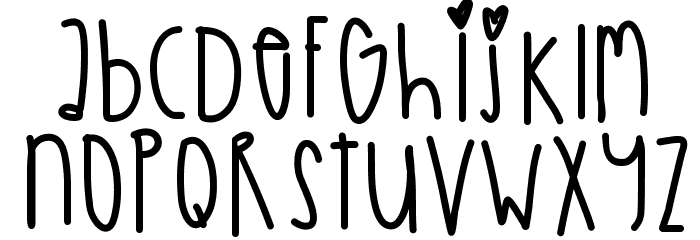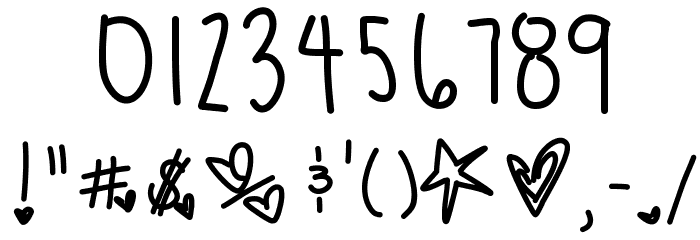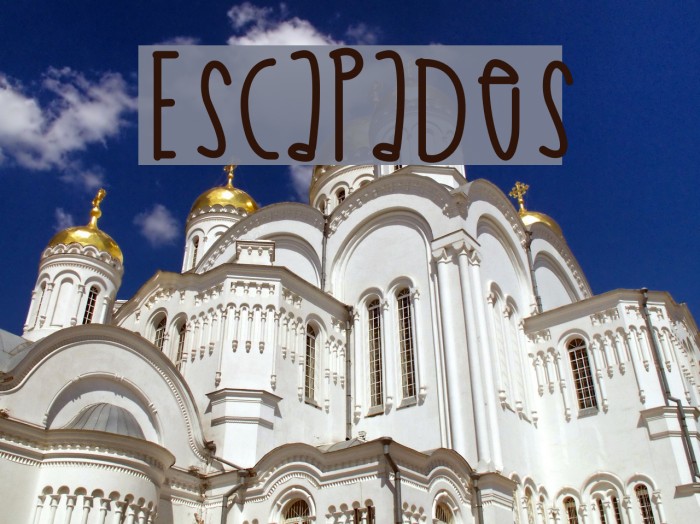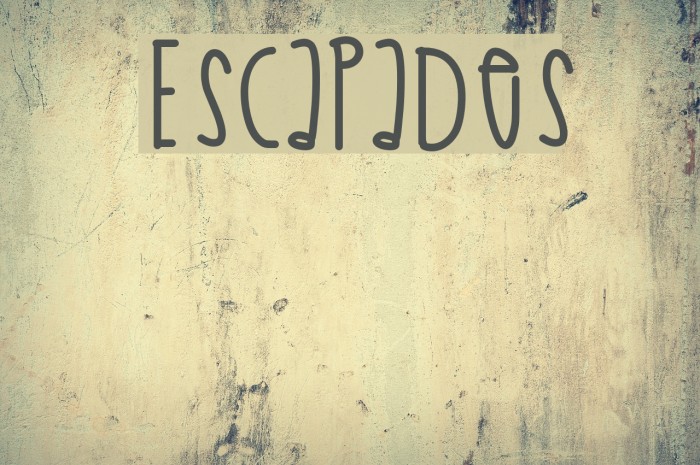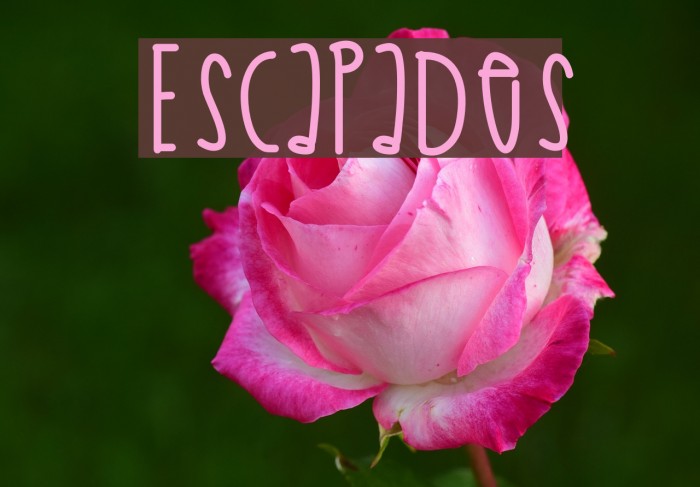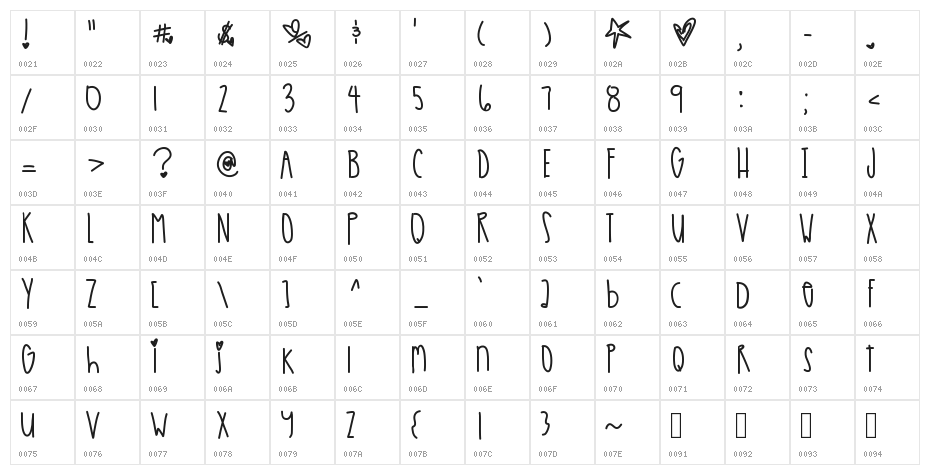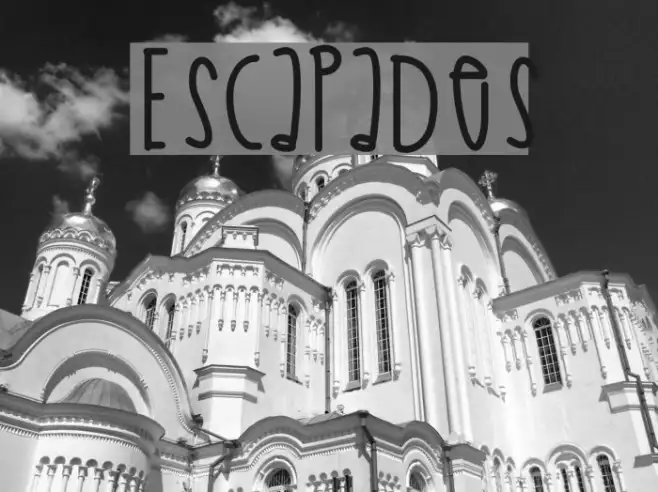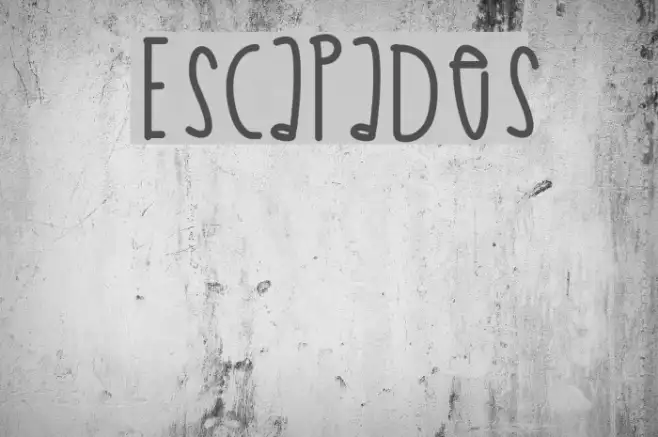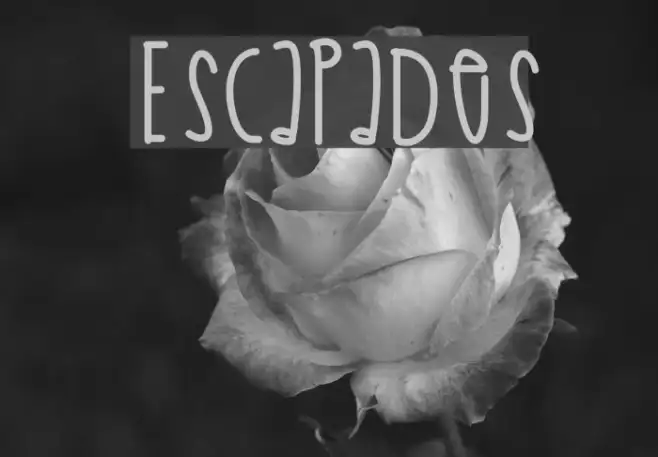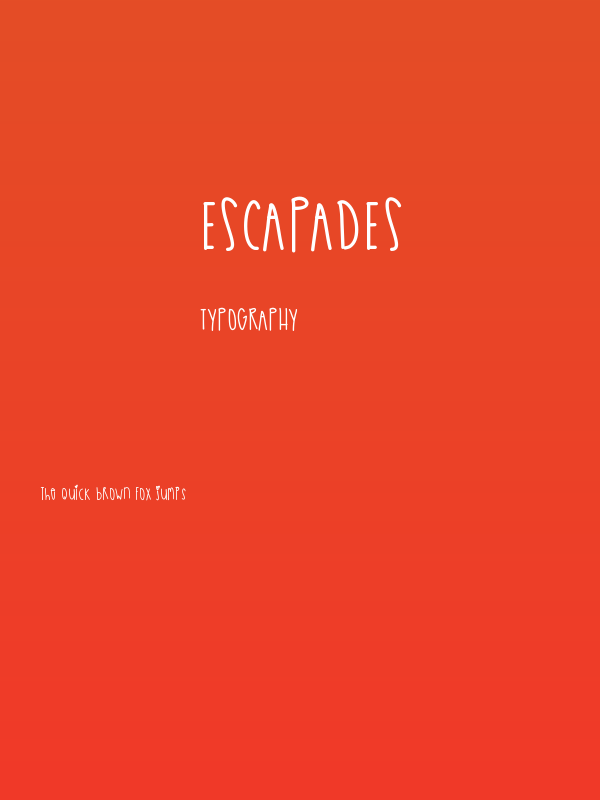
Escapades Font
This playful and whimsical font features tall, narrow letters with a hand-drawn aesthetic. The strokes are uneven, adding a casual and friendly feel. The uppercase and lowercase letters maintain a consistent style, with some characters like 'G' and 'Q' having unique, quirky elements. The numbers are similarly styled, ensuring uniformity across the font. Special characters include charming symbols like hearts and stars, enhancing its decorative appeal. This font is perfect for projects that require a fun and informal touch.
A playful, hand-drawn font with tall, narrow letters and quirky details.
- Proposed Projects: Ideal for greeting cards, children's books, playful branding, and DIY crafts.
- Use Case: Headlines, Logos, Invitations